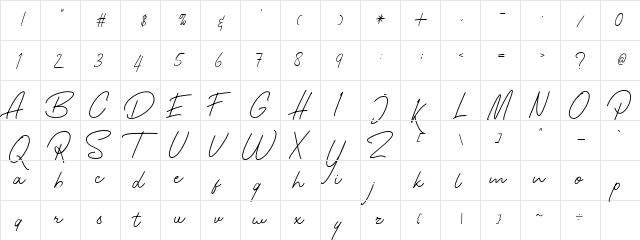
Hamillton Two Regular
Design Context for Hamillton Two Typeface
Hamillton Two is a composed and adaptable typeface that performs quietly and consistently across a wide range of design contexts.